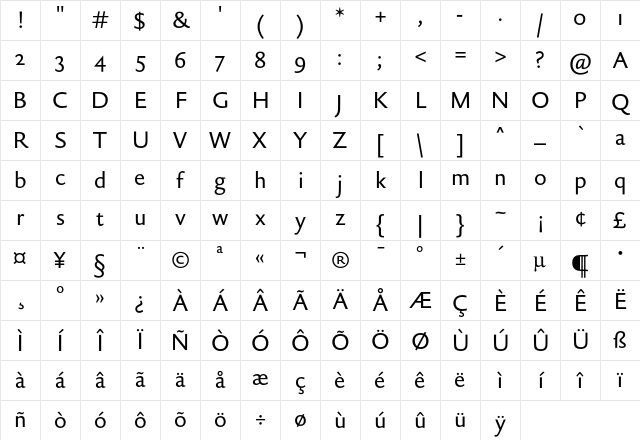
Complete DTL Haarlemmer SD Sans Regular glyph index. Displaying only characters natively supported by DTL Haarlemmer SD Sans Regular font.
DTL Haarlemmer is a composed and adaptable typeface that performs quietly and consistently across a wide range of design contexts.